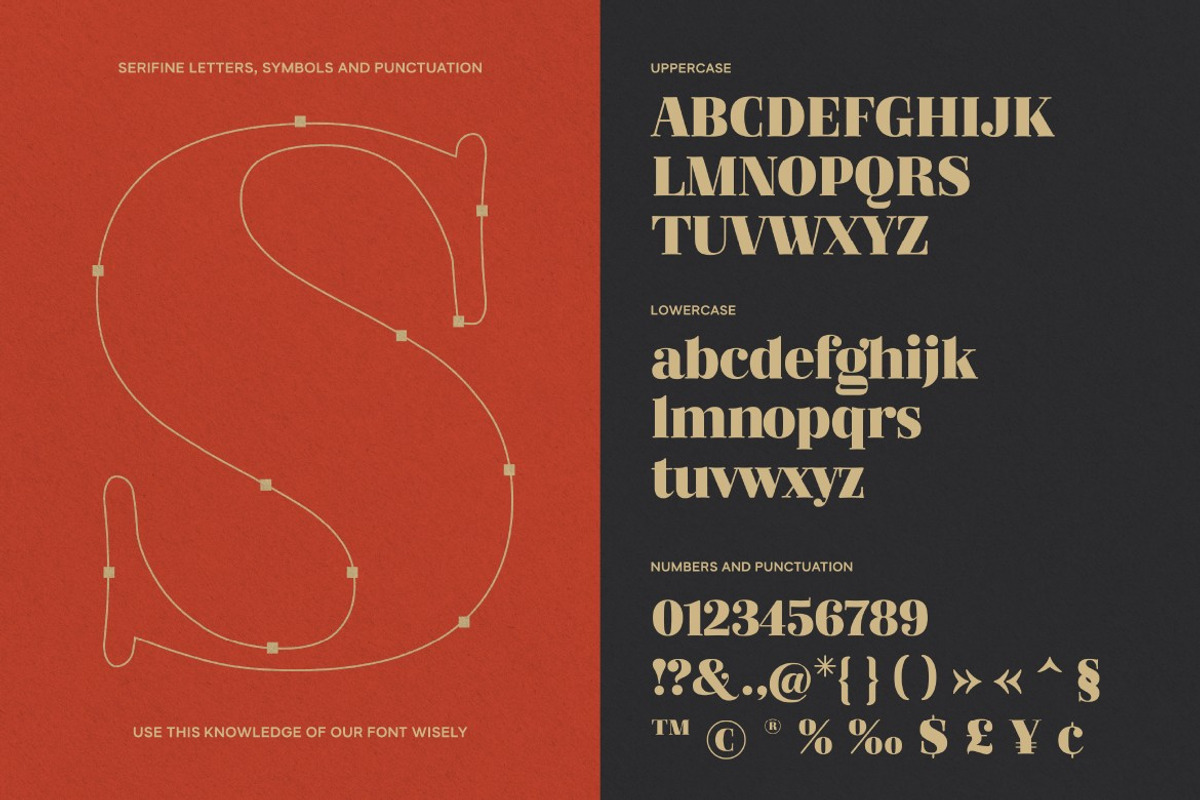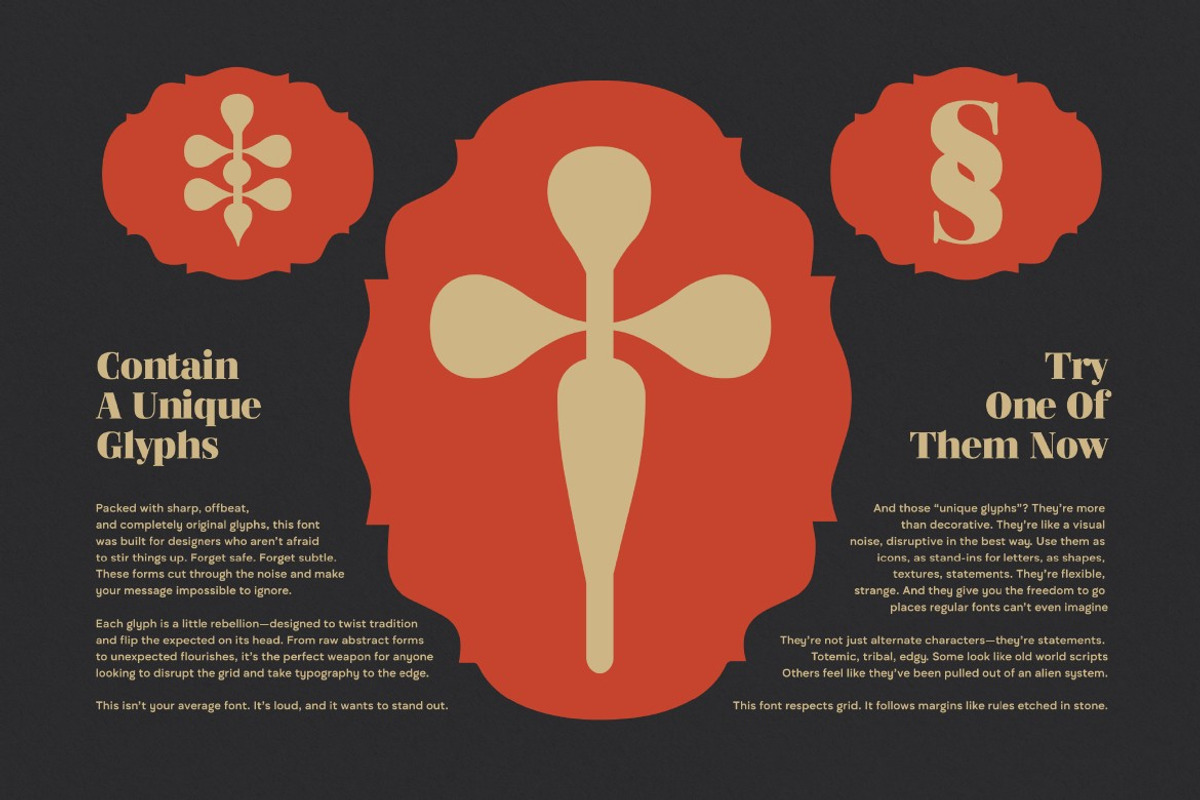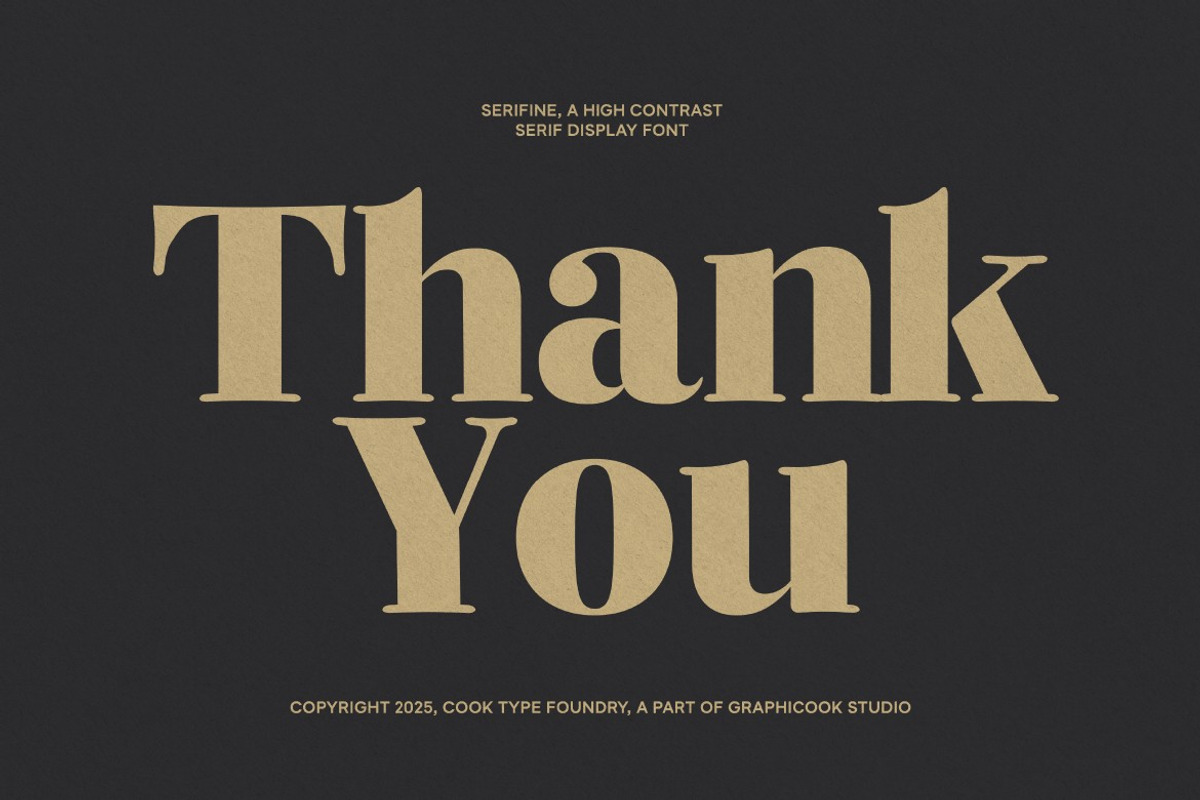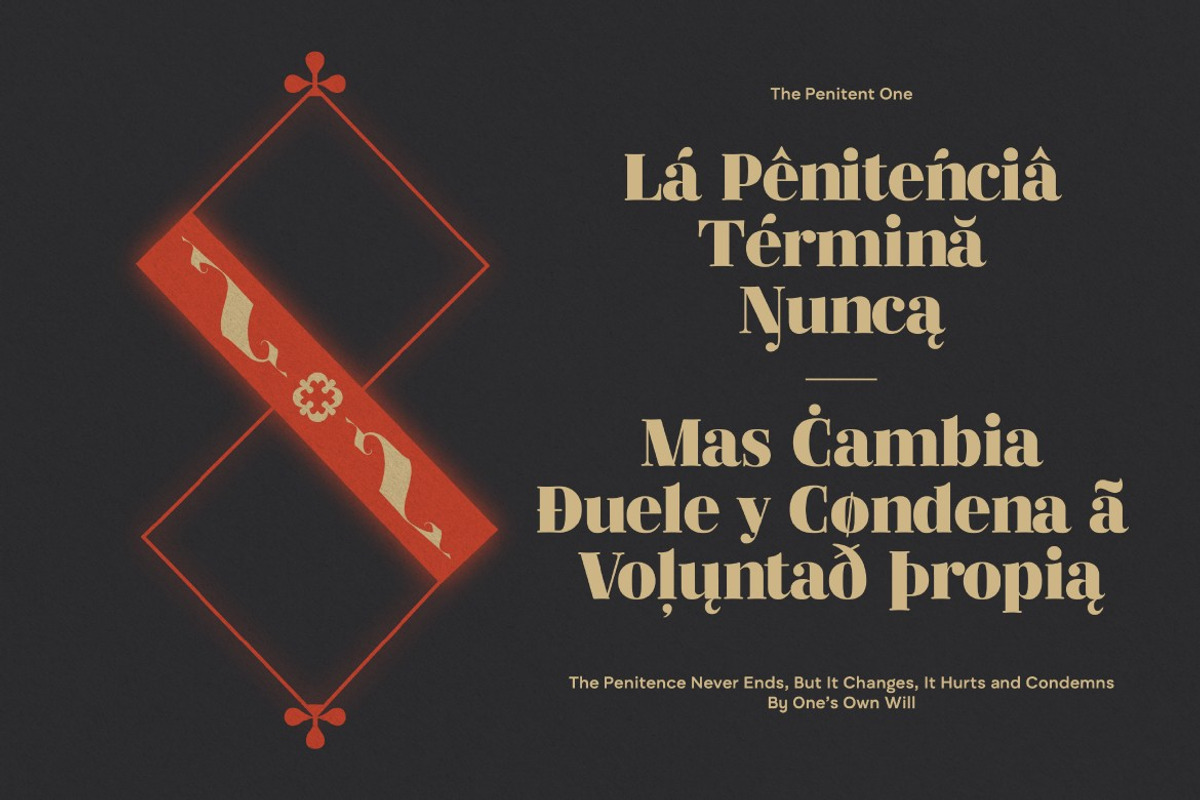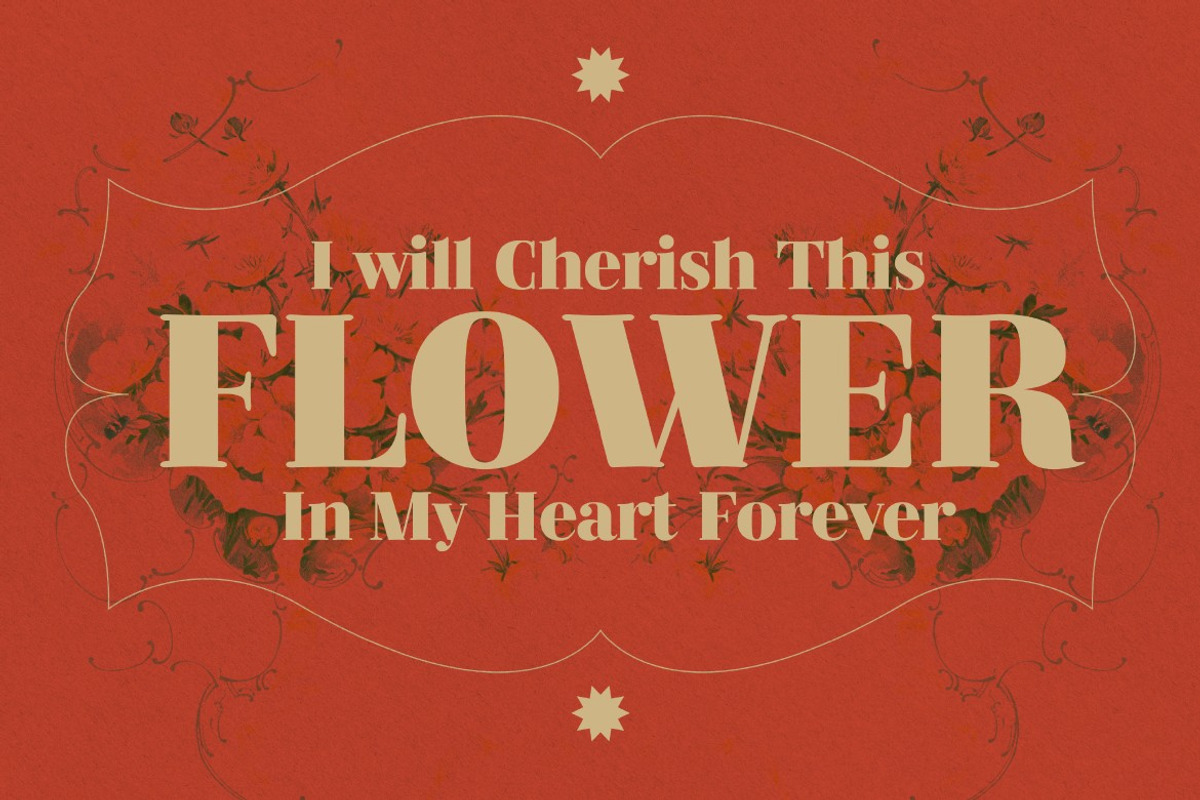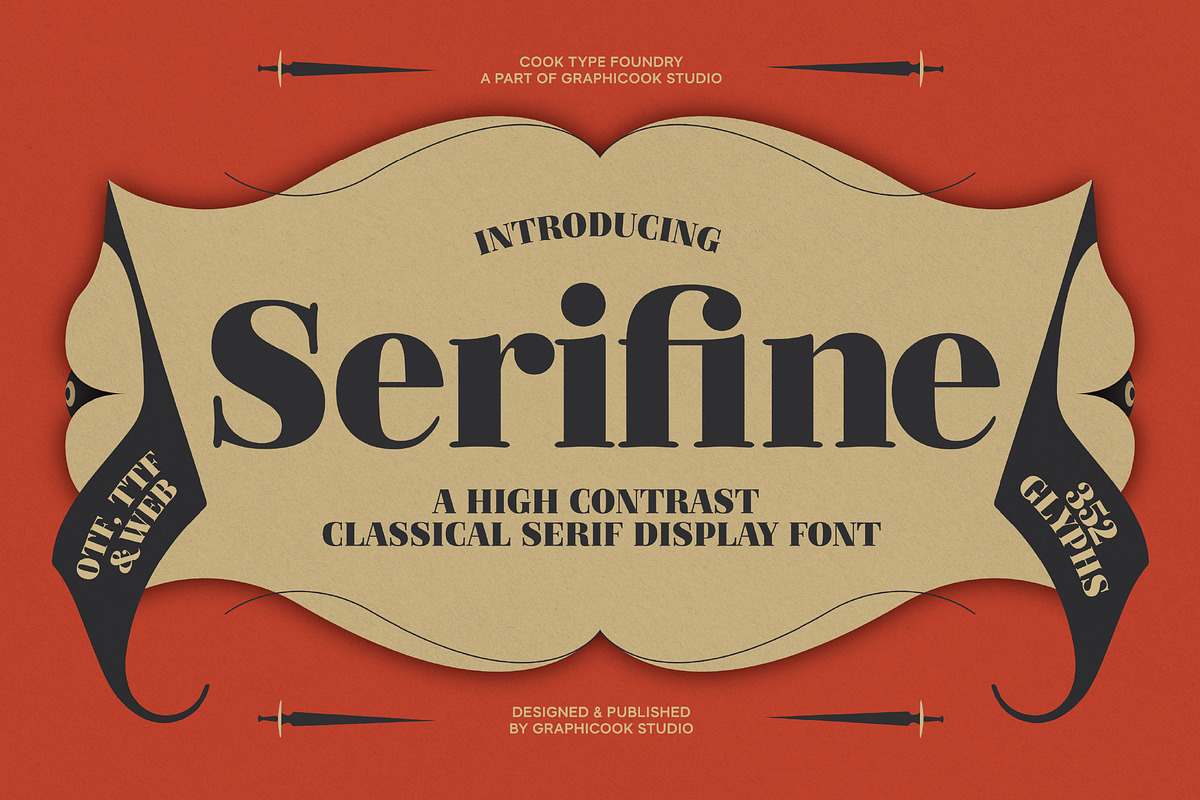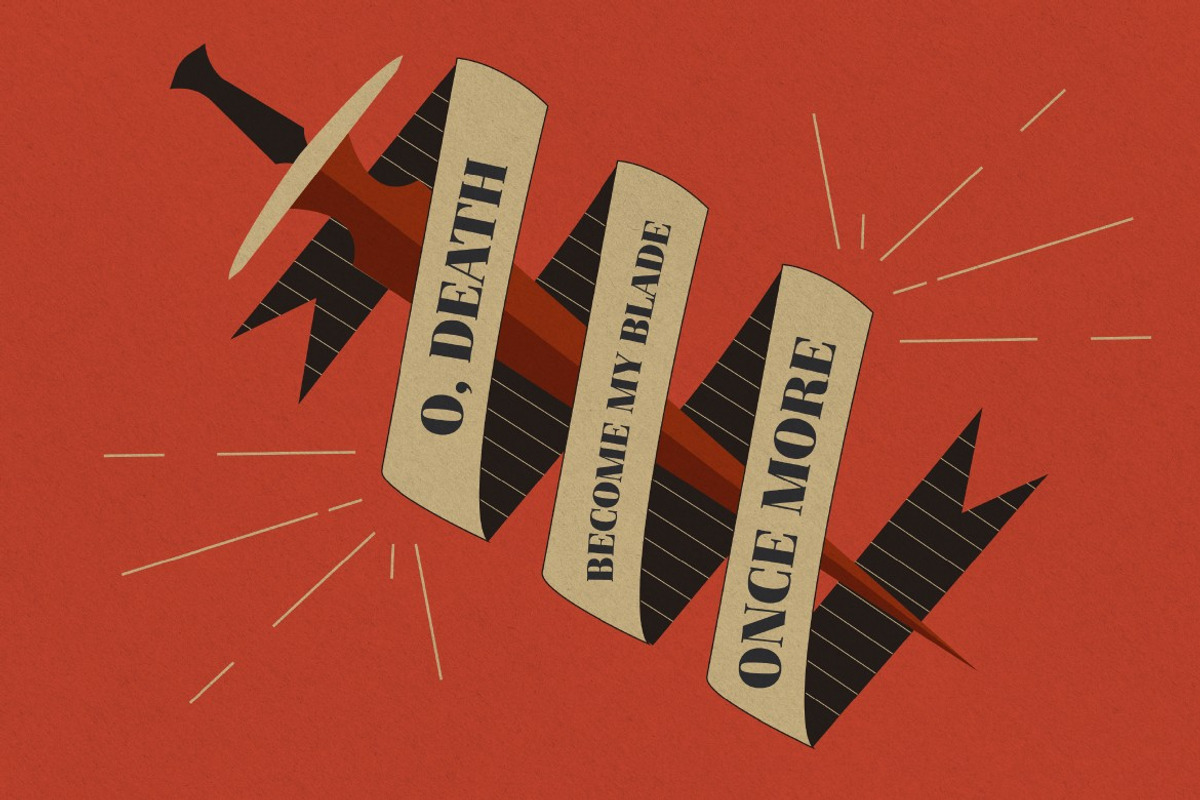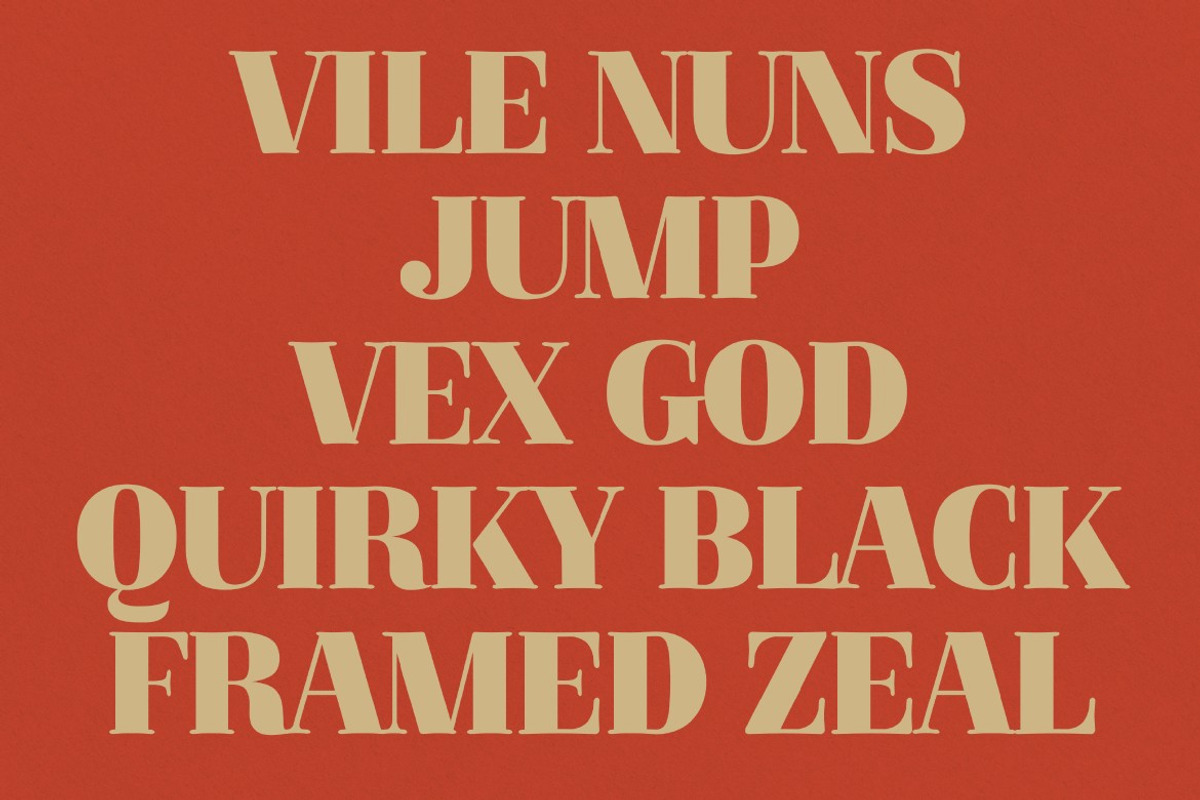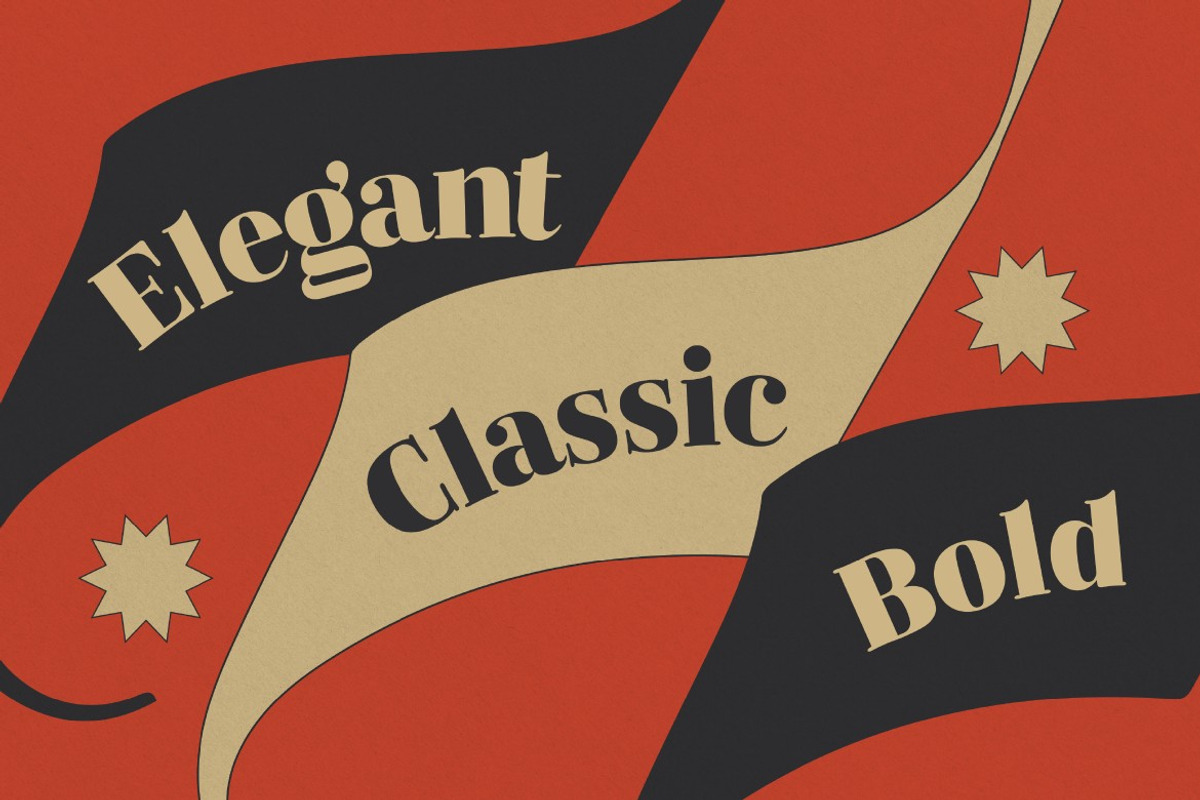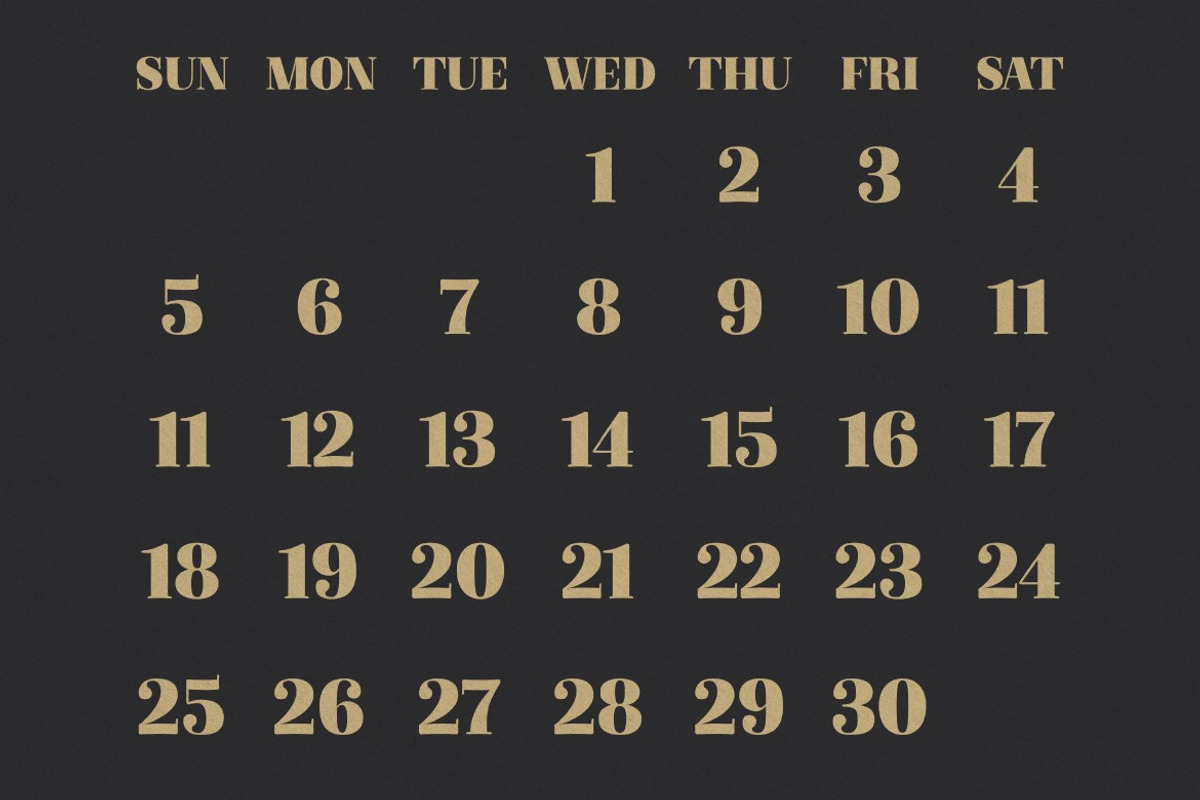
Serifine
Serifine is a high-contrast serif font infused with retro vintage style. Its bold and solid appearance produces a nostalgic feel, making it perfect for headlines, logos, or designs that demand striking visual impact.
Serifine is perfect for headlines, logotypes, magazines, packaging, quotes, movies, games, cover albums, book covers, and flyers, it's a perfect solution for creating eye-catching designs that stand out in any context.